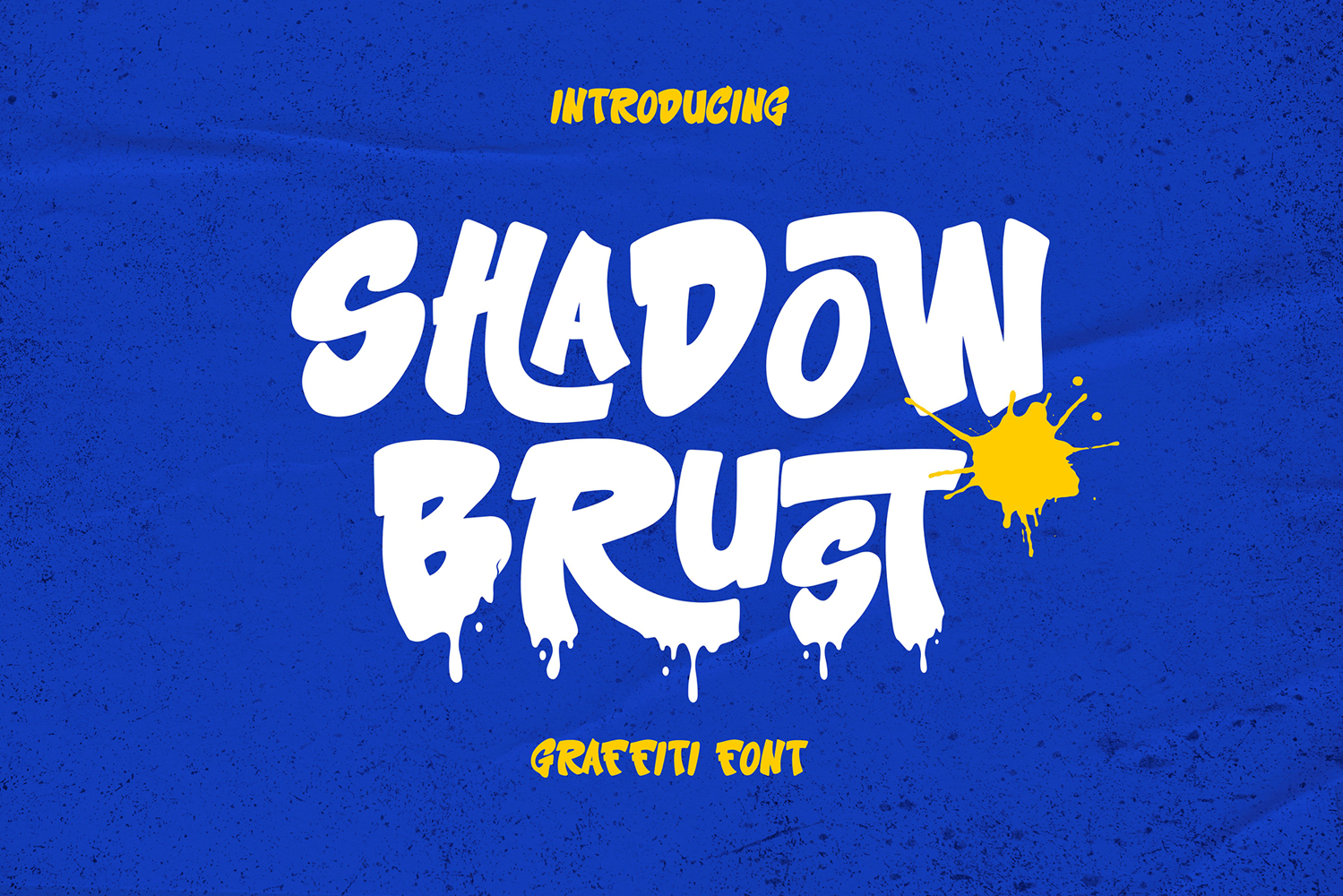
Unleash the raw energy of street art with Shadow Burst! This bold and rebellious graffiti font comes in two unique styles: solid and dripping, capturing street culture's urban and edgy vibe. Built-in ligatures create a seamless, powerful flow, perfect for posters, album covers, and any design that demands a fierce artistic touch!
Make your designs stand out with Shadow Burst!